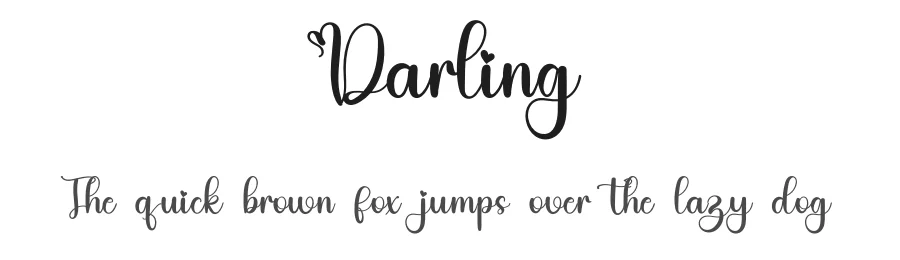
About Jessica Font
Jessica is a lovely script font featuring charming, playful characters that seem to dance along the baseline. Add this font to your most creative ideas, and notice how it makes them stand out!
Jessica Font is a script font that shines as a display or heading face. Pair it with a clean sans-serif or serif font for body text β the contrast creates a clear hierarchy while the two styles stay balanced and easy to read.
Jessica Font
by Erik Studio